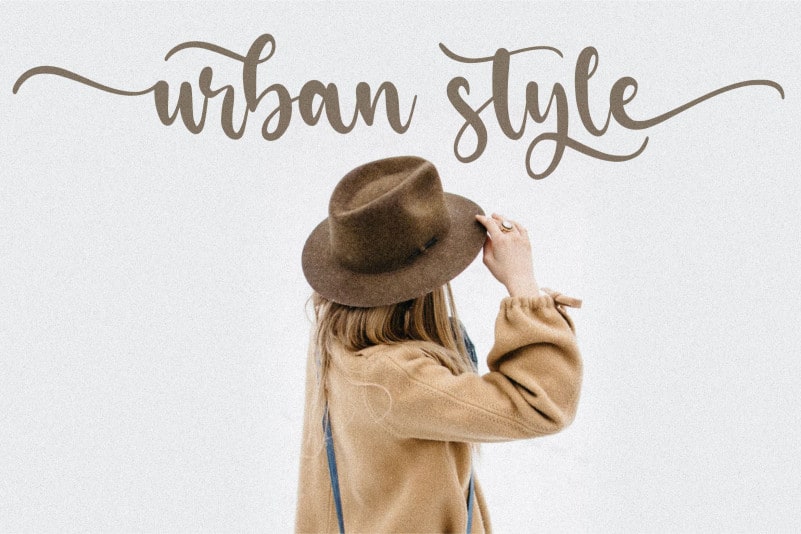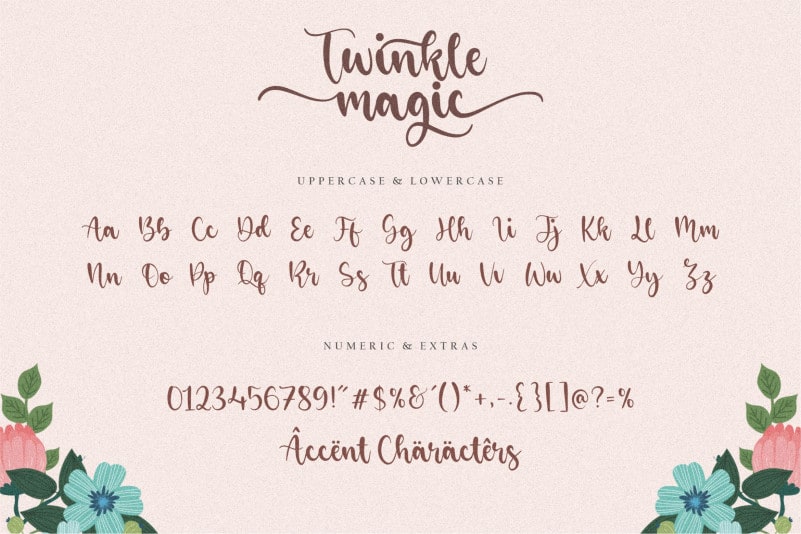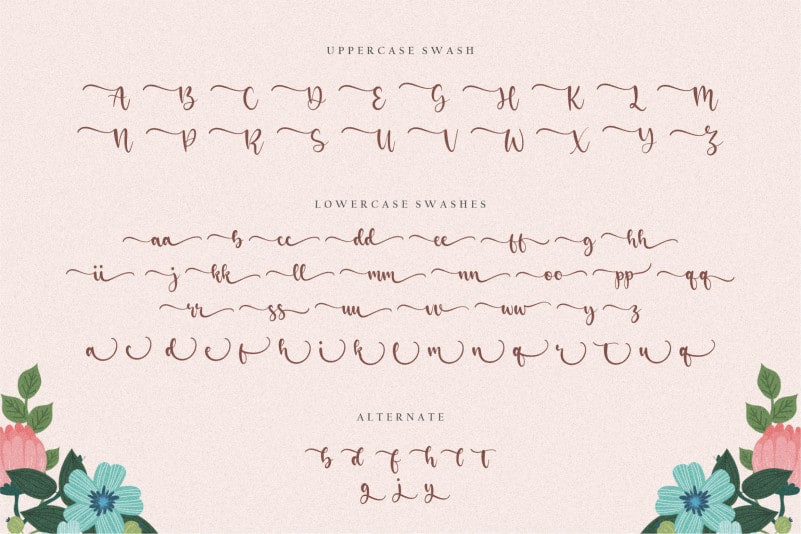
Twinkle Magic Script Font
Proudly Present, Twinkle Magic Script Font.
Twinkle Magic is a Lovely Modern Script Font.
Twinkle Magic is perfect for product packaging, branding project, megazine, social media, wedding, or just used to express words above the background.
Uppercase & Lowercase font Stylistic Alternates Ligatures Symbols & Punctuation OpenType Features.